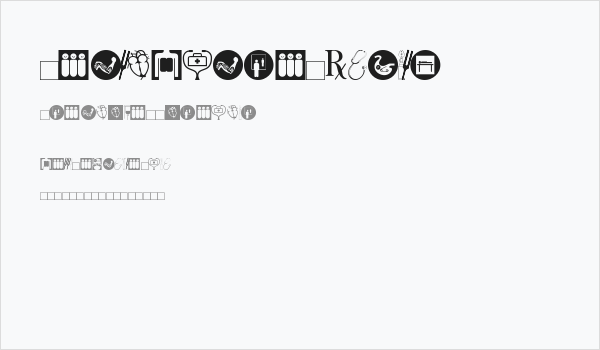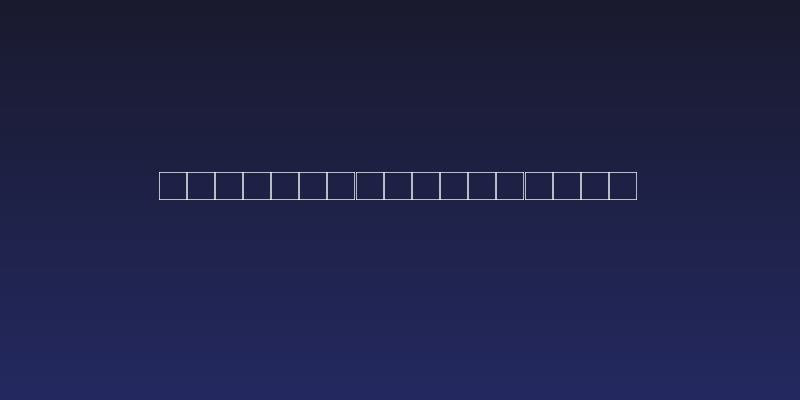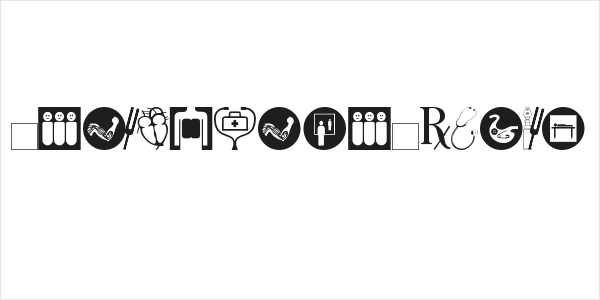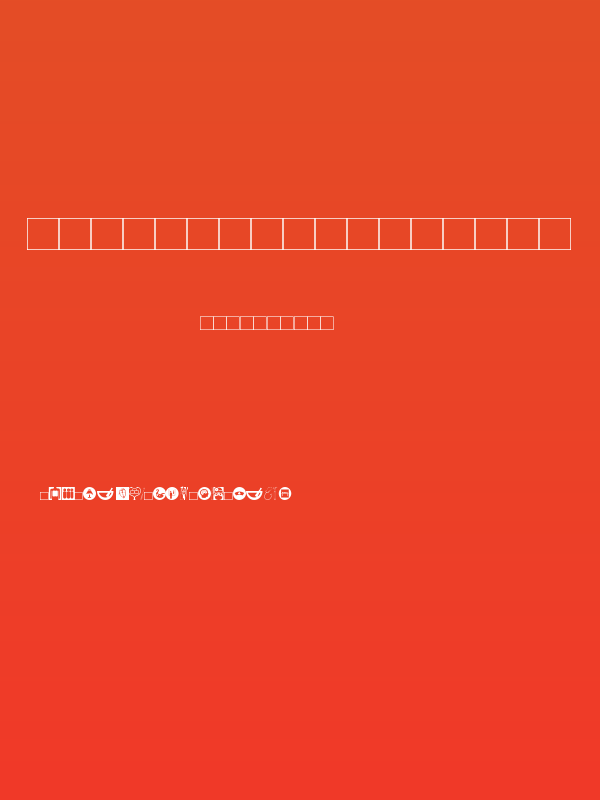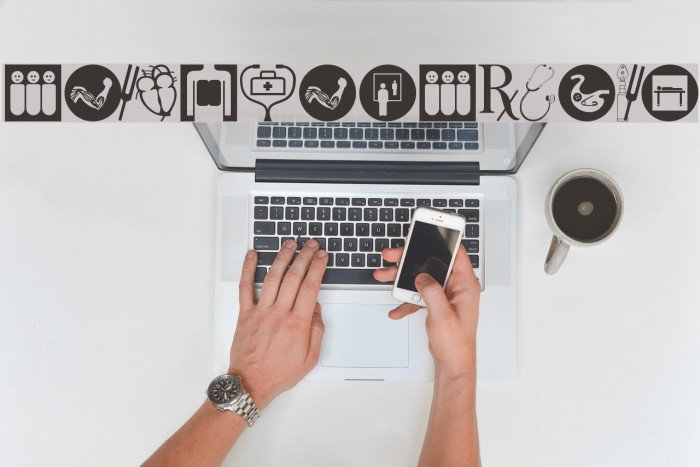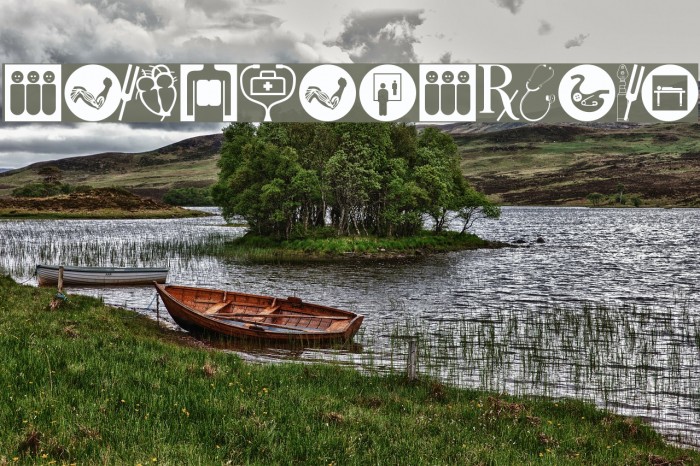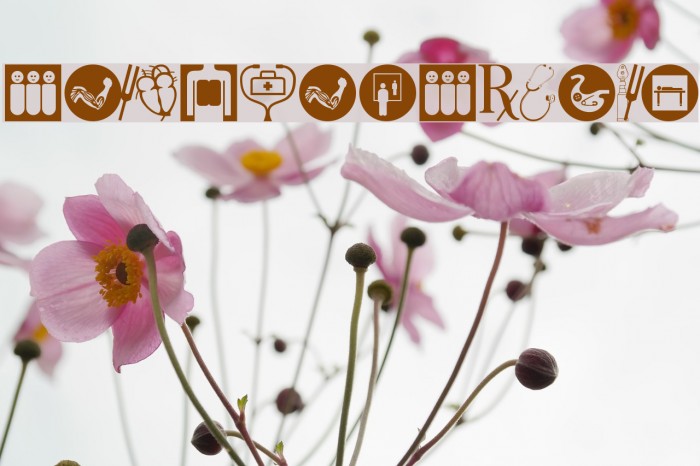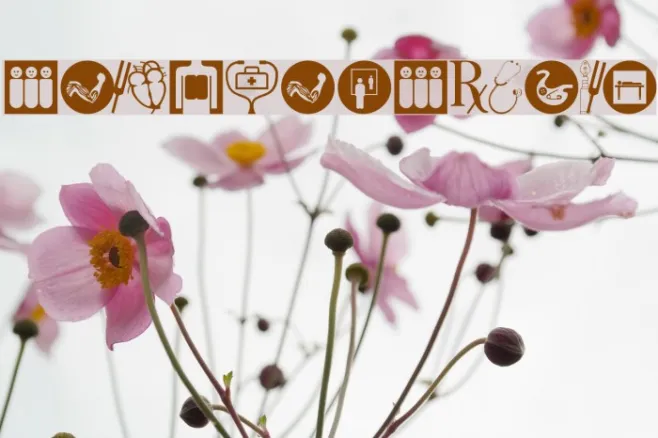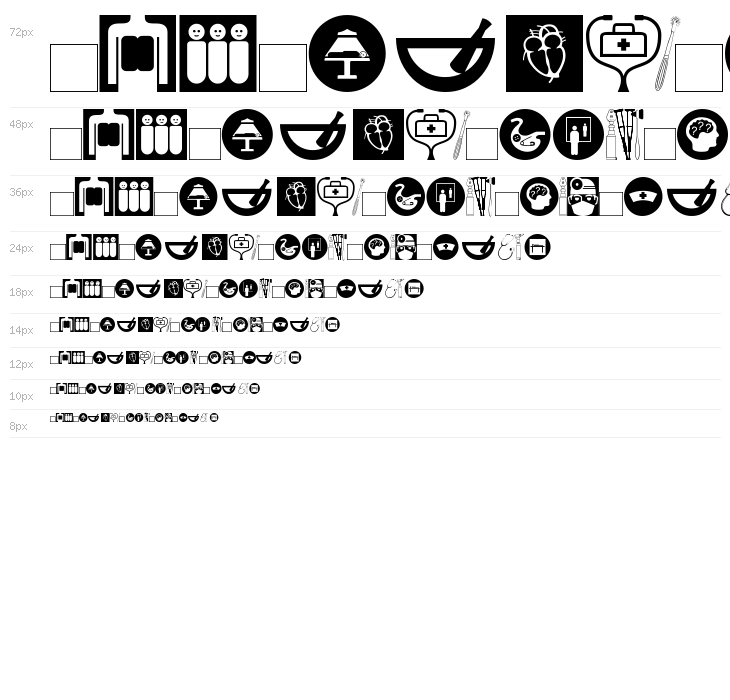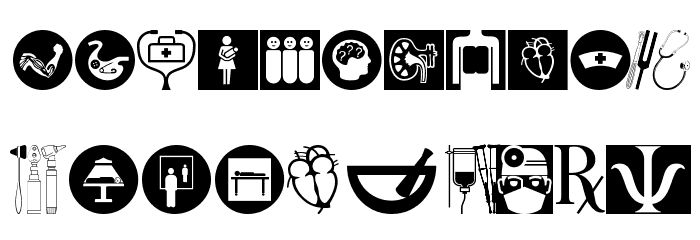
HealthcareSymbols Font
HealthcareSymbols Description
A pictogram-based decorative font featuring various healthcare and medical symbols, such as stethoscopes, syringes, anatomical hearts, hospital beds, and medical staff, each enclosed in a circle or square for visual consistency.
| Overall Style | Decorative, Thematic |
| Use Case | Icons, Infographics, Signage, Educational graphics |
| Proposed Projects | Medical infographics, hospital signage, healthcare presentations, educational materials, and health-related app interfaces. |